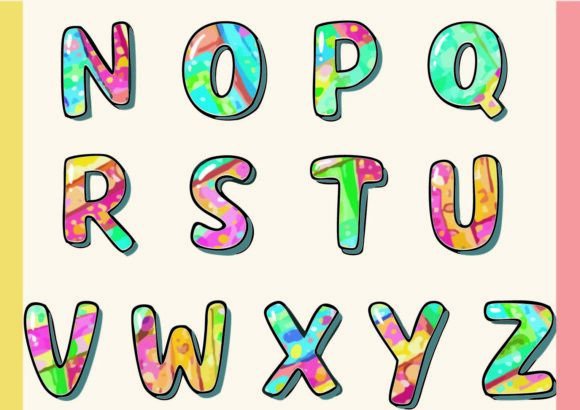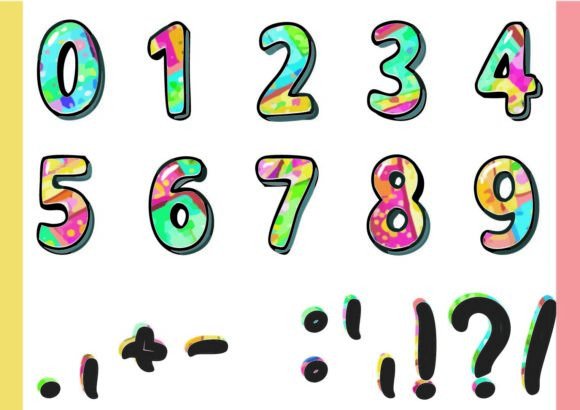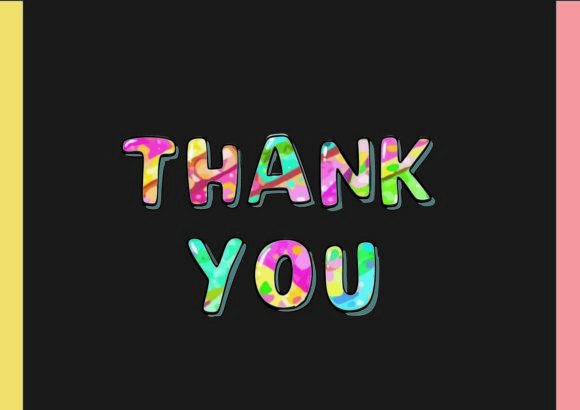
Camille Font: A Colorful Heaven for Designers and Crafters
Are you tired of using the same old fonts in your designs? Look no further than the Camille Font, a vibrant and unique color font that will take your typography to the next level. This stunning font features a complex set of paths and connections in every single glyph, making each one a miniature masterpiece. In this article, we’ll dive into the world of Camille Font and explore its features, benefits, and uses.
A Colorful Font Like No Other
The Camille Font is a color font, specifically an Opentype-SVG font, which means it’s compatible with a range of design software, including Photoshop, Illustrator, Silhouette, and Inkscape. This font is not just a simple set of letters and numbers; it’s a work of art. Every single glyph has a different set of colors, creating a colorful heaven that’s sure to inspire your designs.
Complex Sets of Paths and Connections
When you take a closer look at the glyphs in the Camille Font, you’ll notice intricate sets of paths and connections that make each one a typographic painting. The level of detail and craftsmanship that has gone into creating this font is evident in every glyph. Whether you’re a designer, crafter, or simply a font enthusiast, you’ll appreciate the beauty and complexity of the Camille Font.
This means you can use the Camille Font in a range of design applications, from graphic design and illustration to crafting and cutting.
So, what are the benefits of using the Camille Font in your designs? Here are just a few:
- Add a pop of color: The Camille Font is perfect for adding a splash of color to your designs. Whether you’re creating a logo, poster, or social media graphic, this font is sure to grab attention.
- Stand out from the crowd: With its unique and intricate design, the Camille Font is sure to set your designs apart from the competition.
- Inspire your creativity: The complex sets of paths and connections in the Camille Font are sure to inspire your creativity and take your designs to the next level.
Uses for the Camille Font
The Camille Font is versatile and can be used in a range of design applications, including:
- Graphic design: Use the Camille Font in your graphic design projects, such as logos, brochures, and posters.
- Illustration: The Camille Font is perfect for illustration projects, such as creating custom illustrations and graphics.
- Crafting: The Camille Font is compatible with cutting software, making it perfect for crafters who want to create custom vinyl cuts, iron-on designs, and more.
The Camille Font is a unique and vibrant color font that’s sure to take your designs to the next level. With its complex sets of paths and connections, intricate design, and compatibility with a range of design software, this font is perfect for designers, crafters, and font enthusiasts alike. Whether you’re looking to add a pop of color, stand out from the crowd, or inspire your creativity, the Camille Font is the perfect choice.